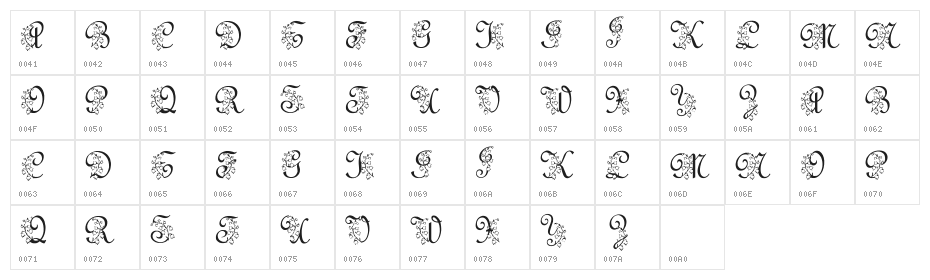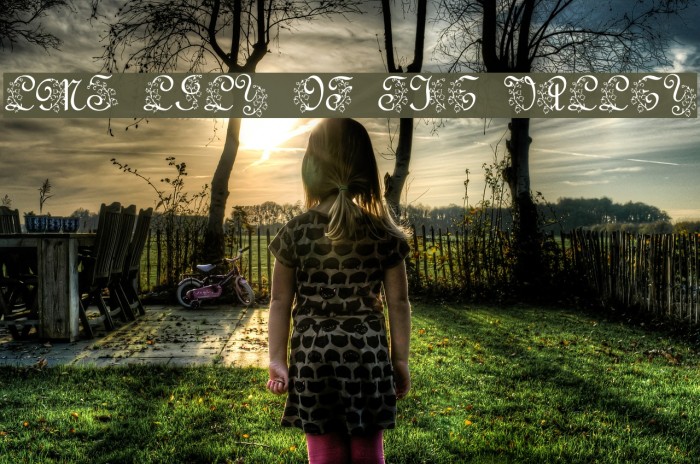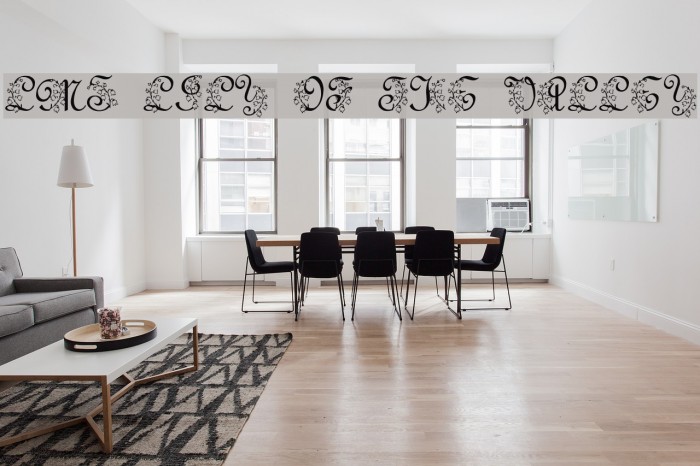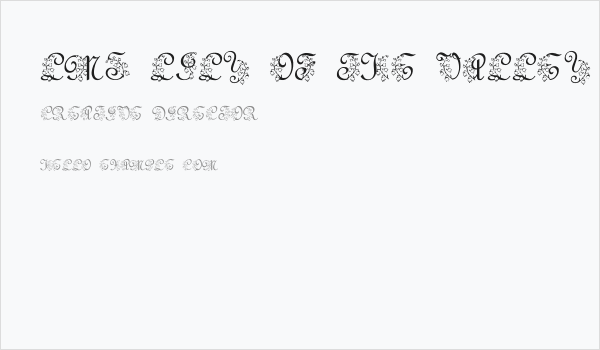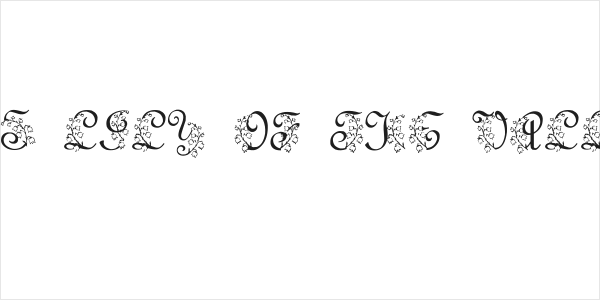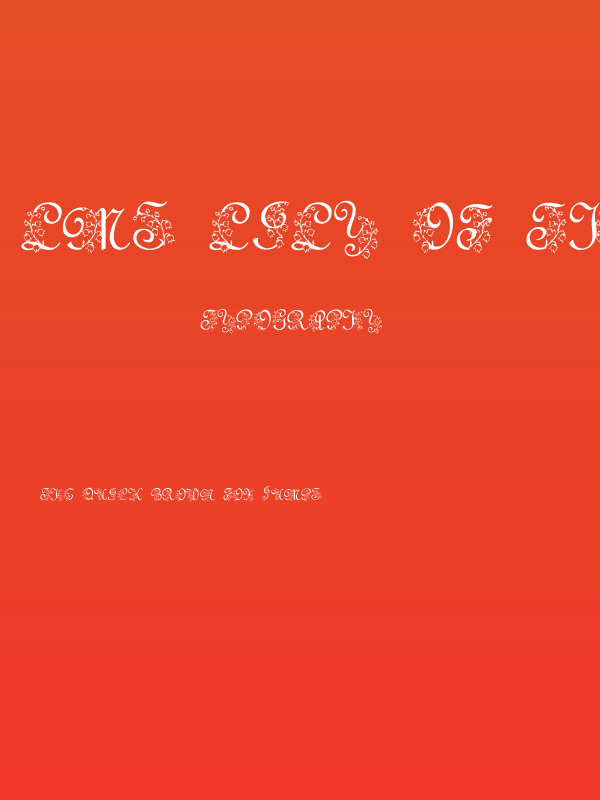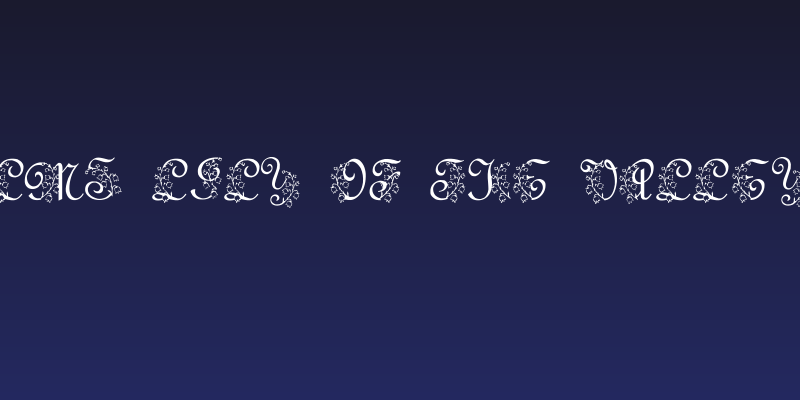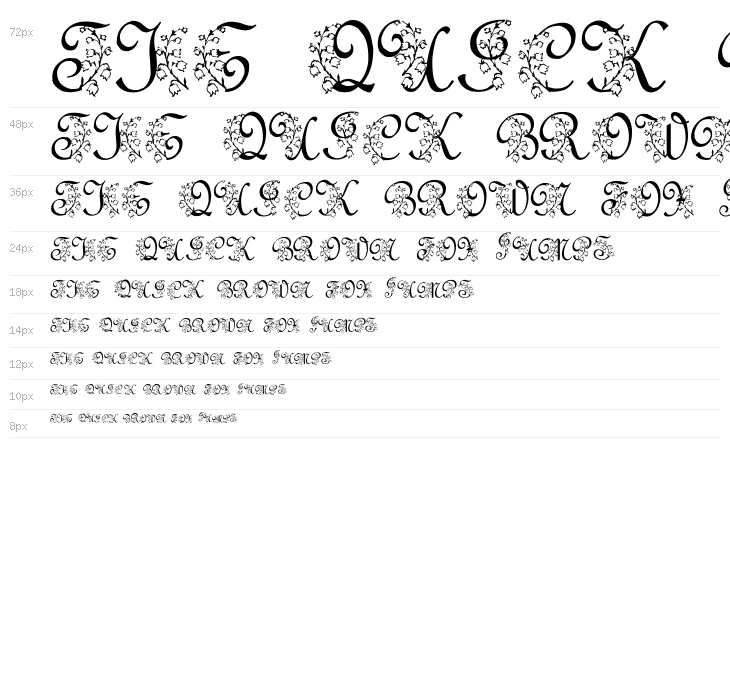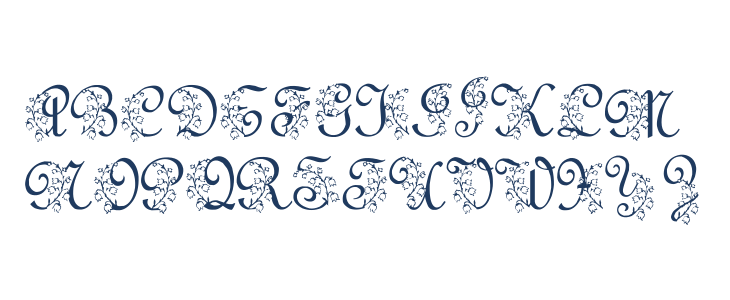
LMS Lily Of The Valley Font
LMS Lily Of The Valley Description
This font is an ornate and decorative typeface featuring intricate floral embellishments integrated into each character. The design is highly detailed, with each letter adorned with delicate floral patterns that give it a whimsical and elegant appearance. The characters maintain a consistent style, with flowing curves and flourishes that enhance the overall aesthetic. This font is ideal for projects that require a touch of sophistication and artistry, making it suitable for invitations, greeting cards, and other creative designs. The intricate details may not be suitable for small text sizes but shine in larger displays.
| Proposed Projects | Ideal for wedding invitations, greeting cards, decorative posters, and artistic projects. |